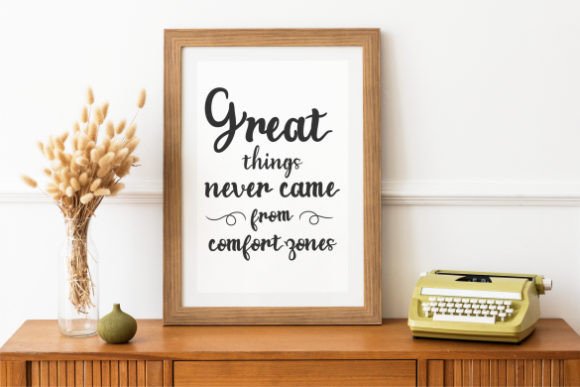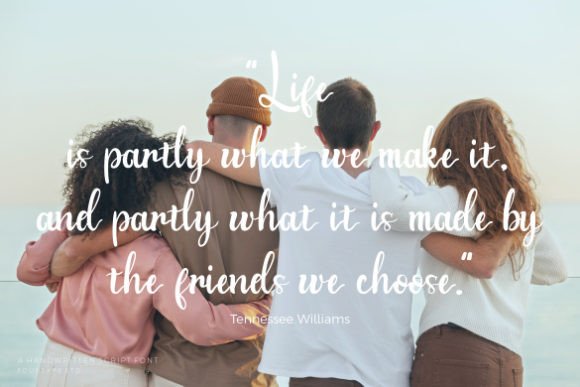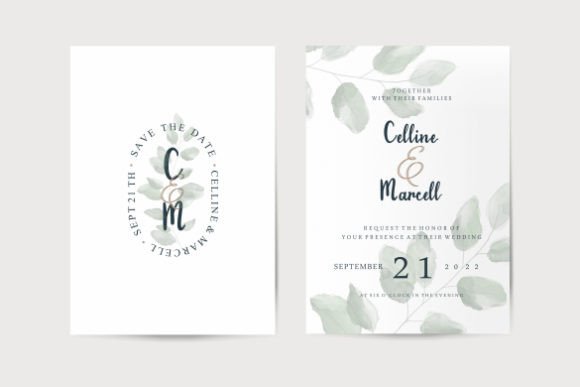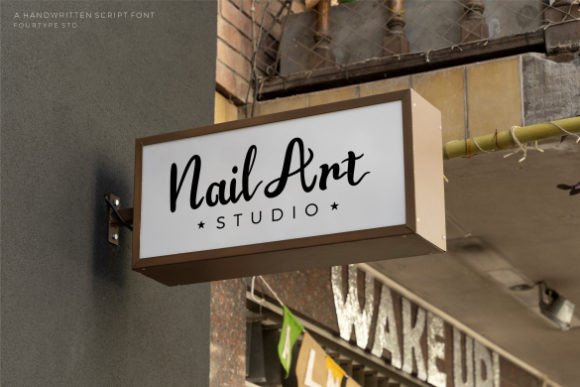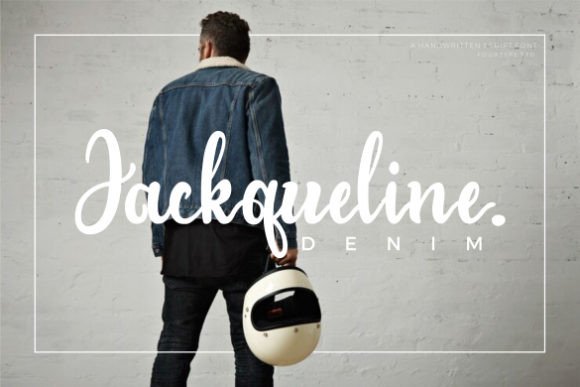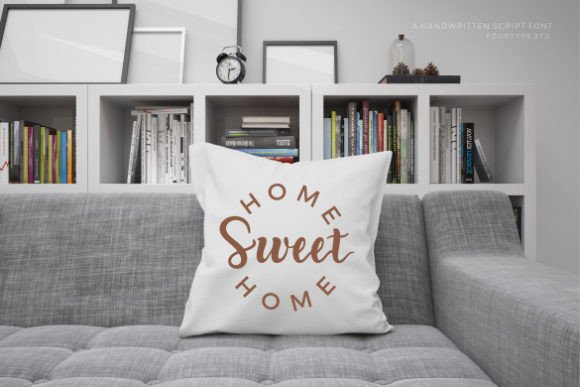
Cruel Motley Font: Elevate Your Designs with Elegance and Timeless Style
Are you on the hunt for a font that exudes elegance, sophistication, and a touch of timeless charm? Look no further than the Cruel Motley font. This stunning, flowing handwritten font is designed to capture the essence of classic style with a modern twist, making it perfect for a wide range of creative projects. In this article, we’ll dive into the world of Cruel Motley, exploring its unique characteristics, uses, and benefits for designers and crafters alike.
The Essence of Cruel Motley Font
Cruel Motley is a flowing handwritten font that embodies an elegant touch, setting it apart from more traditional fonts. Its incredibly distinct and timeless style is what makes it a standout choice for designers looking to add a touch of sophistication to their work. Whether you’re creating a logo, branding materials, or simply want to add a personal touch to your digital or print projects, Cruel Motley is sure to make a lasting impression.
Key Features of Cruel Motley Font
- Elegant and Flowing Script: Cruel Motley’s script is smooth, fluid, and effortlessly elegant, making it perfect for designs that require a touch of refinement.
- Timeless Style: Unlike trendy fonts that may quickly go out of style, Cruel Motley’s classic appeal ensures it remains relevant for years to come.
- Versatility: This font can be used across various platforms and projects, from digital media to print materials, offering endless possibilities for creative expression.
- Distinctive Character: Cruel Motley’s unique character set ensures that your designs stand out from the crowd, offering a distinctive look that’s hard to replicate with more common fonts.
Tips for Using Cruel Motley Font Effectively
To make the most of Cruel Motley, consider the following tips:
- Pair with Complementary Fonts: Combine Cruel Motley with simpler fonts to create visual interest and hierarchy in your designs.
- Adjust Size and Color: Experiment with different sizes and colors to ensure the font complements your overall design.
- Consider Line Spacing: For body text, ensure adequate line spacing to improve readability.
- Limit Use to Headings and Accents: While beautiful, using Cruel Motley for large blocks of text may not be the most practical choice. Reserve it for headings, titles, and accents.
Cruel Motley font offers a unique blend of elegance, timelessness, and distinctiveness that’s hard to find in more conventional fonts. Its versatility and wide range of applications make it an excellent addition to any designer’s or crafter’s toolkit. Whether you’re looking to create stunning branding, beautiful stationery, or captivating web content, Cruel Motley is sure to elevate your designs to new heights. So why wait? Fall in love with Cruel Motley’s incredibly distinct and timeless style and start creating spectacular designs today!